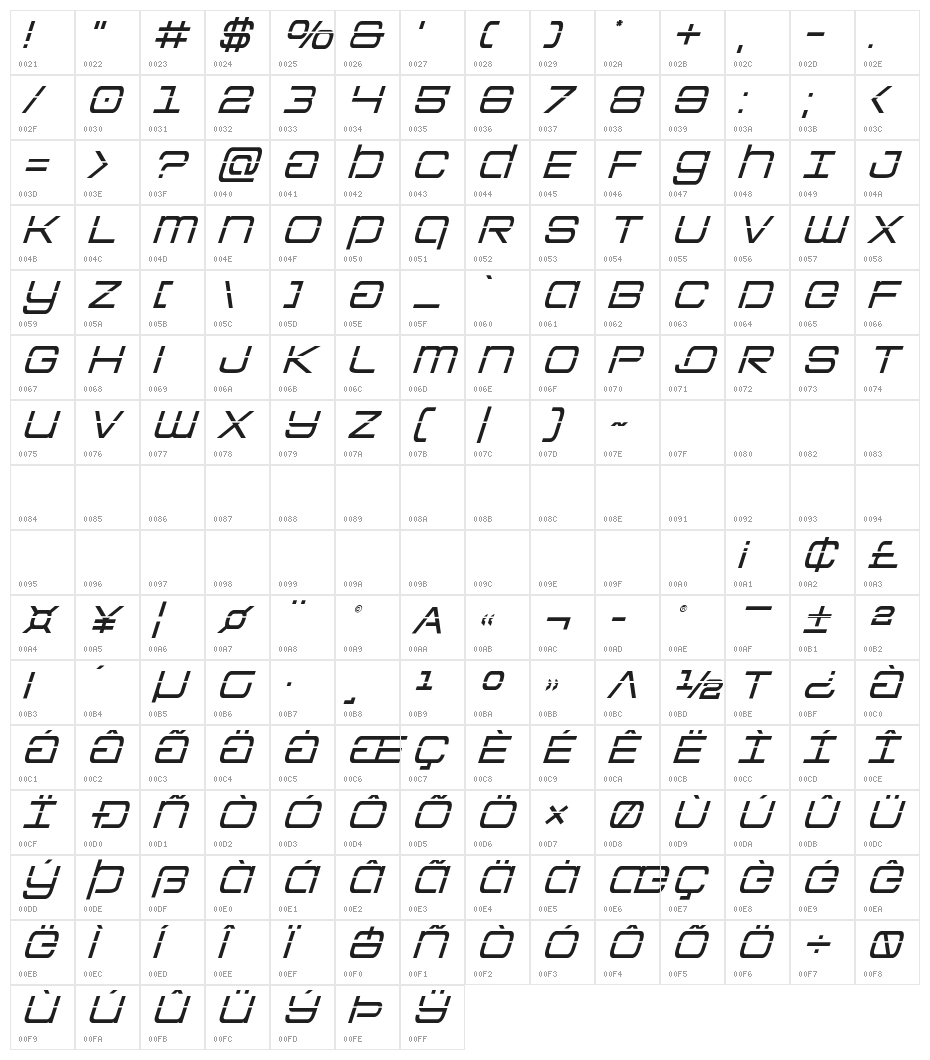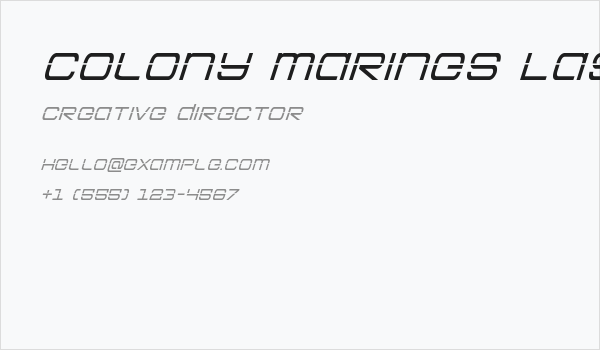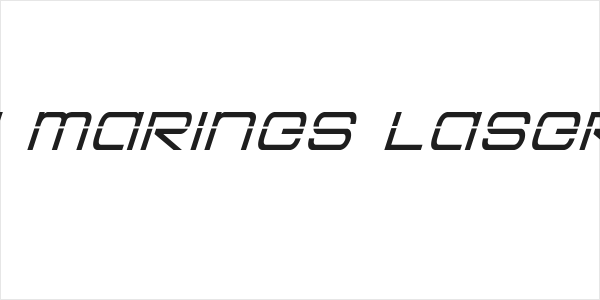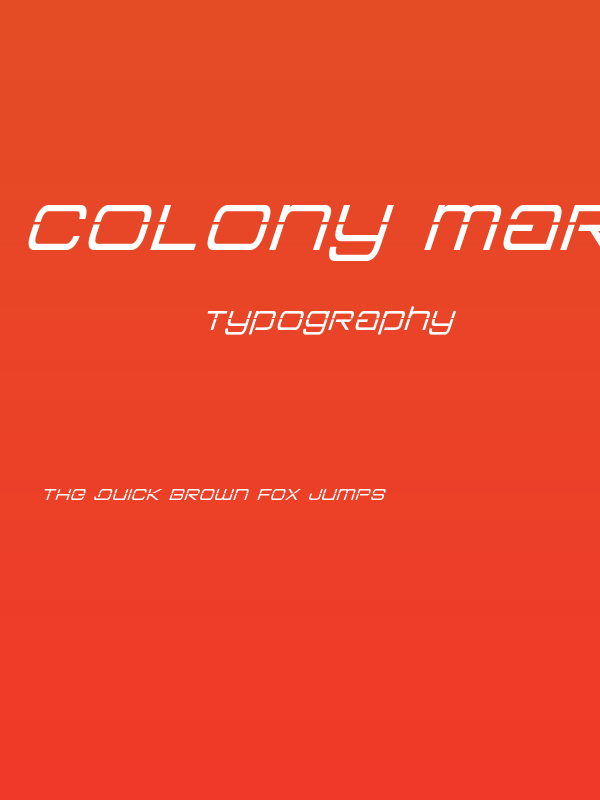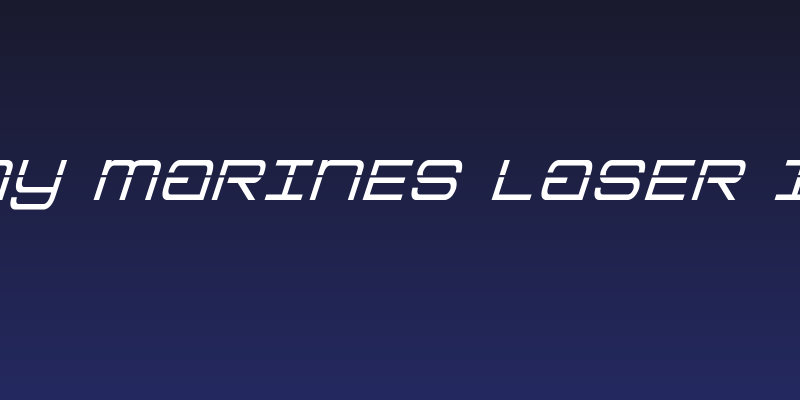
Colony Marines Laser Italic Font
Colony Marines Laser Italic Description
This font features a futuristic and sleek design with a distinct italic slant, giving it a dynamic and forward-moving appearance. The characters are constructed with a geometric precision, incorporating sharp angles and clean lines that convey a sense of modernity and technological advancement. The uppercase and lowercase letters maintain a consistent style, with uniform stroke widths that enhance readability while preserving the font's unique aesthetic. The numerals and special characters are designed to complement the alphabet, ensuring a cohesive look across all text elements. This font's style is particularly suited for projects that require a modern and innovative touch.
| Proposed Projects | Ideal for technology branding, sci-fi themed projects, video game interfaces, and modern advertising campaigns. |